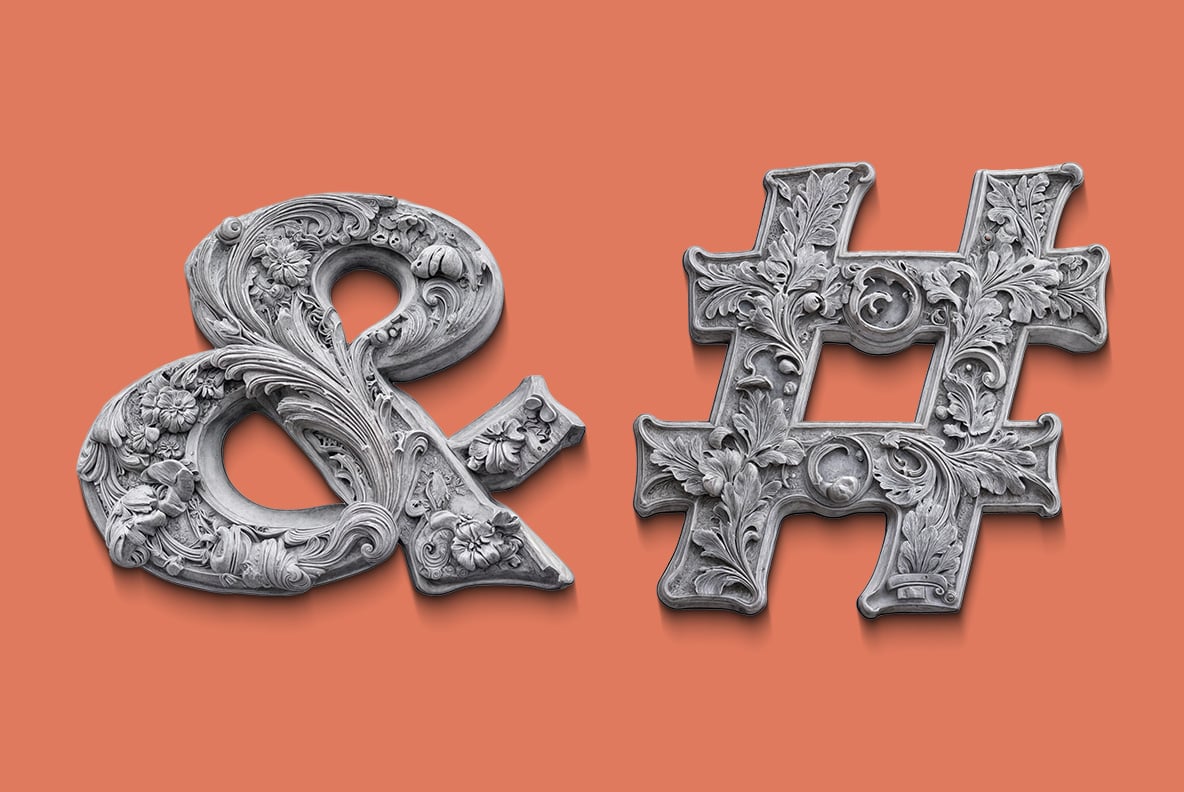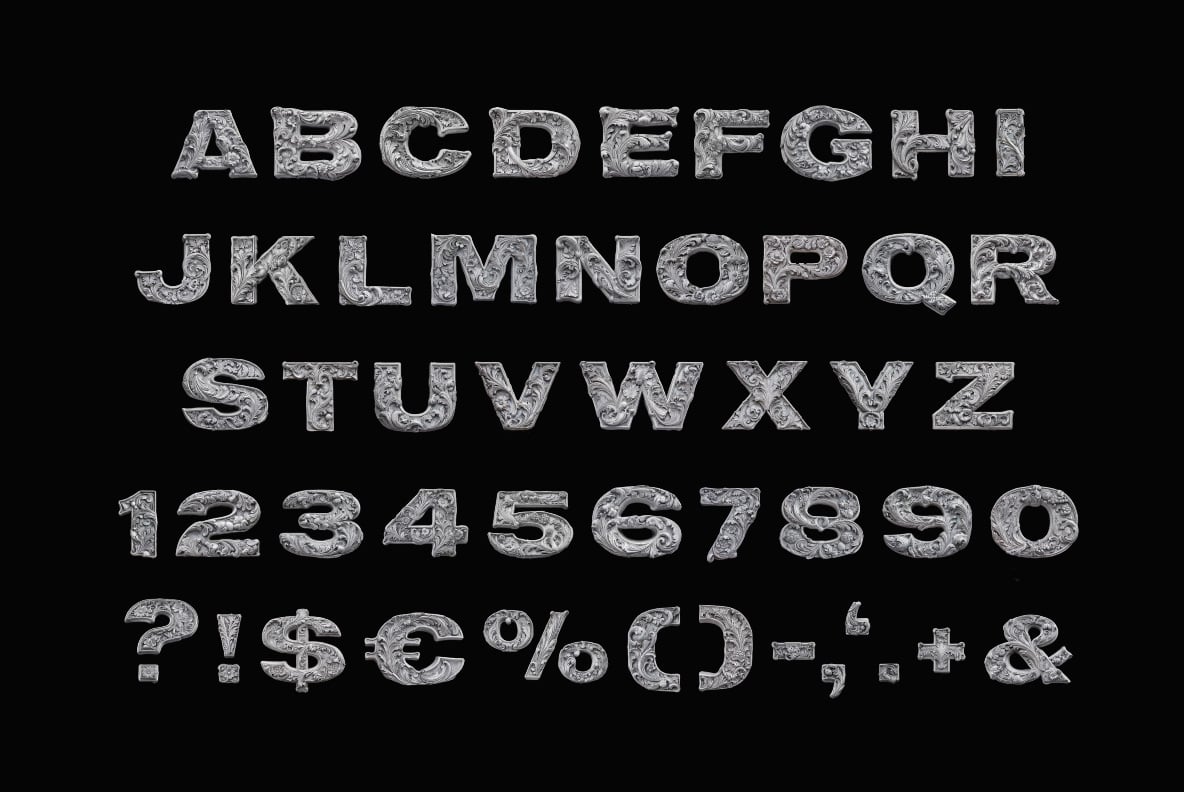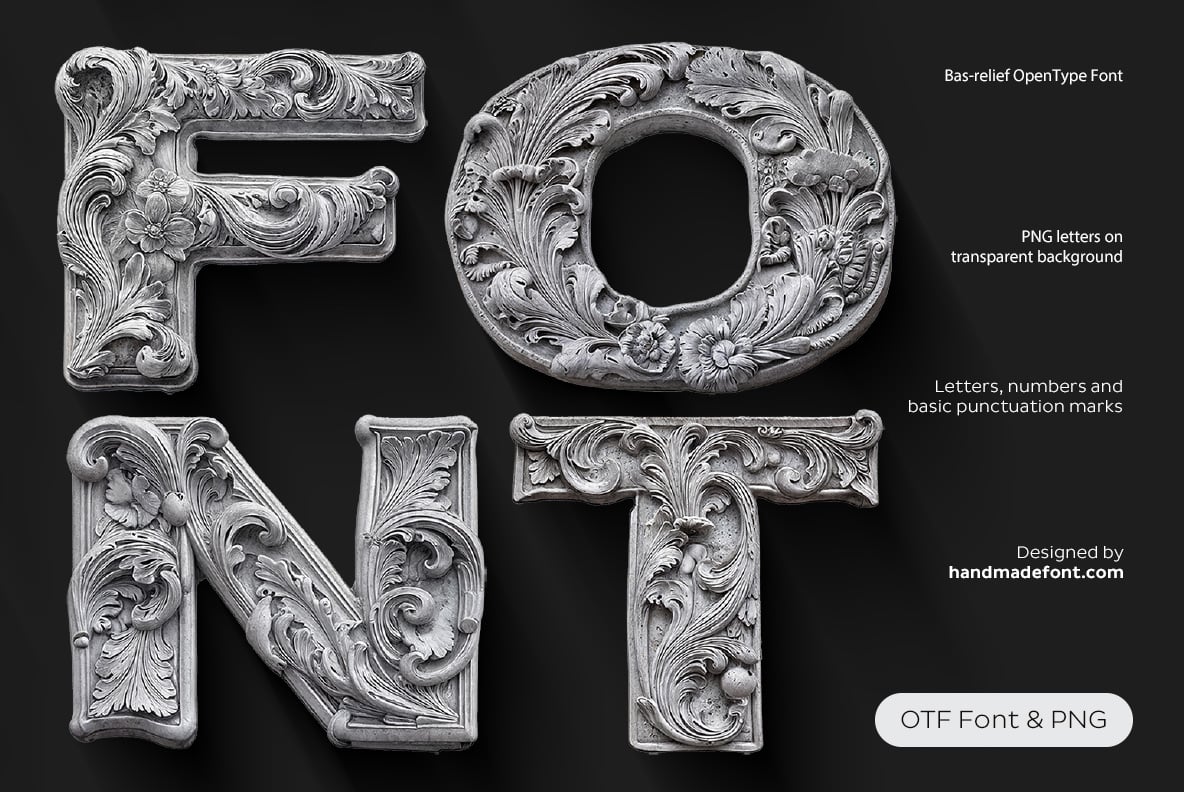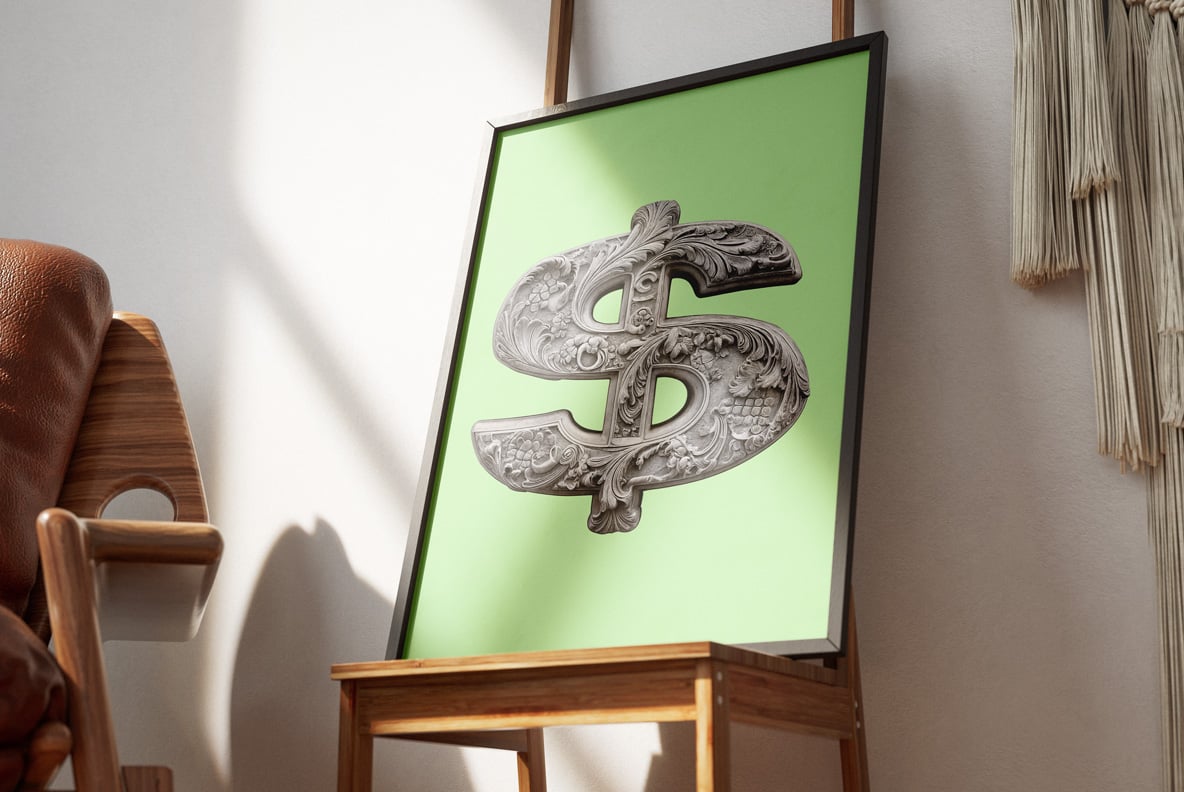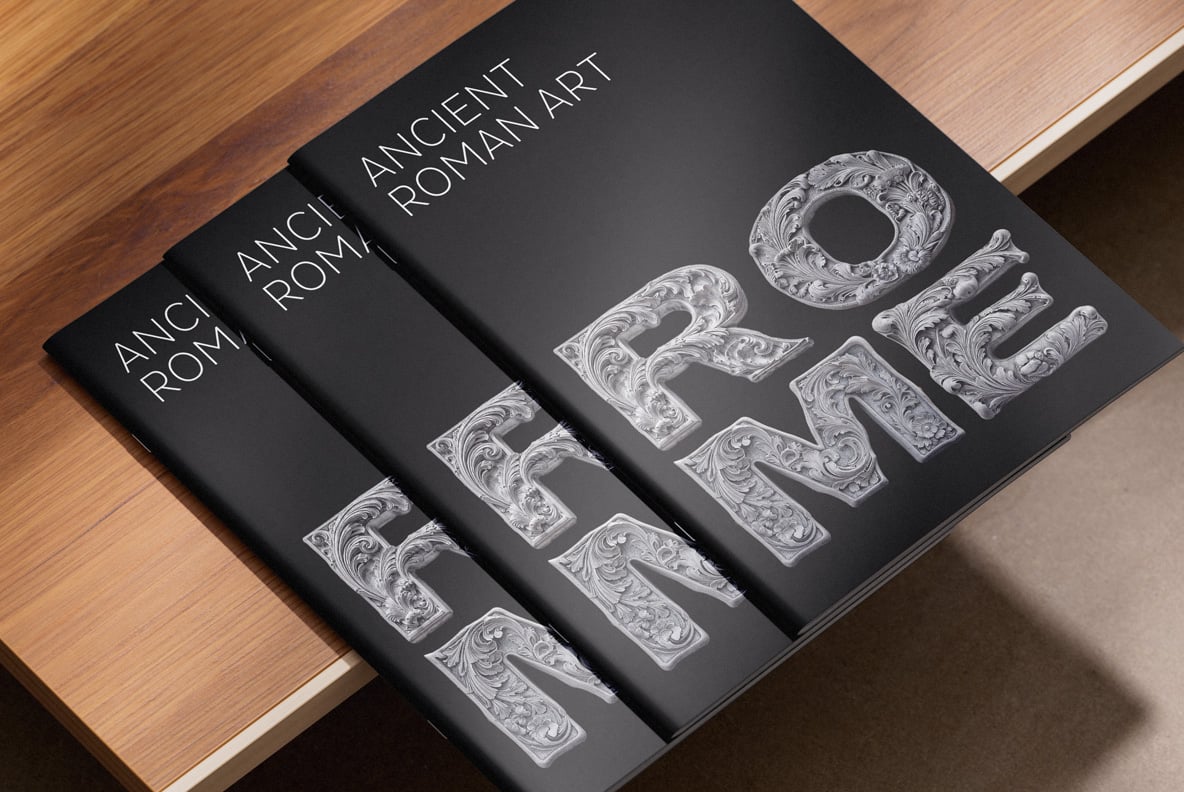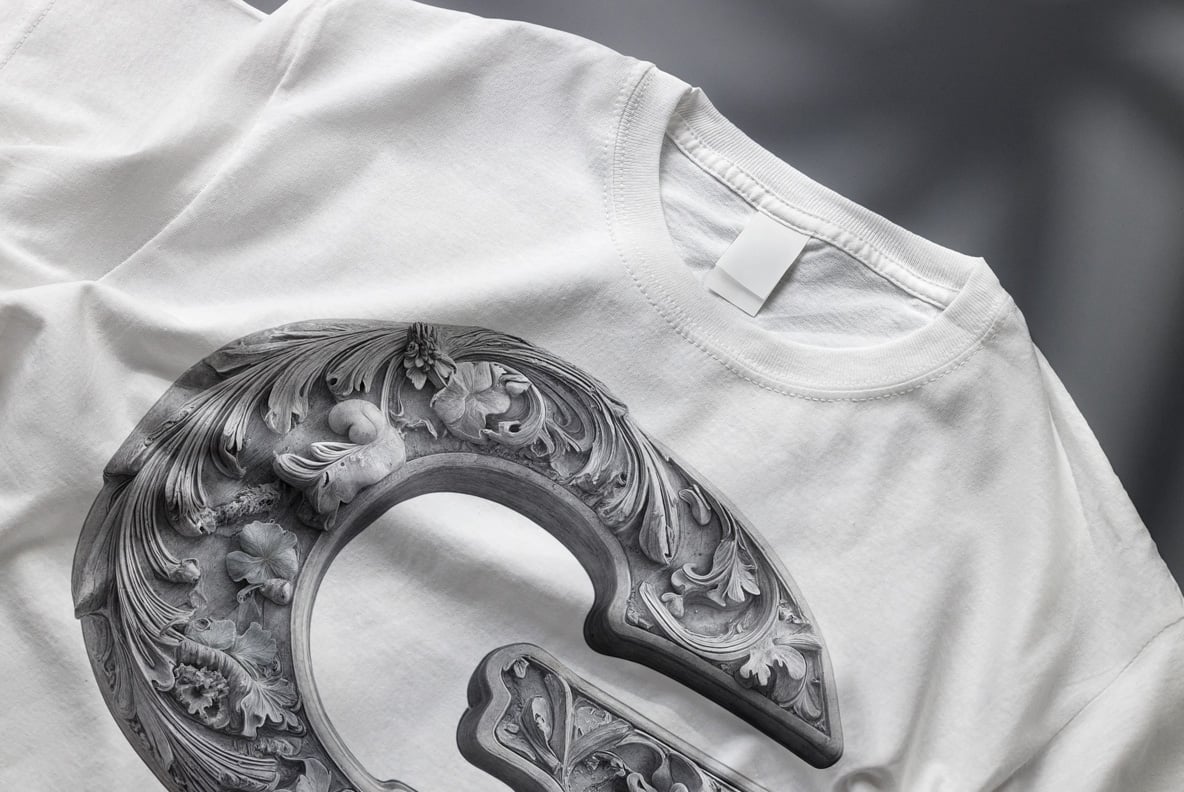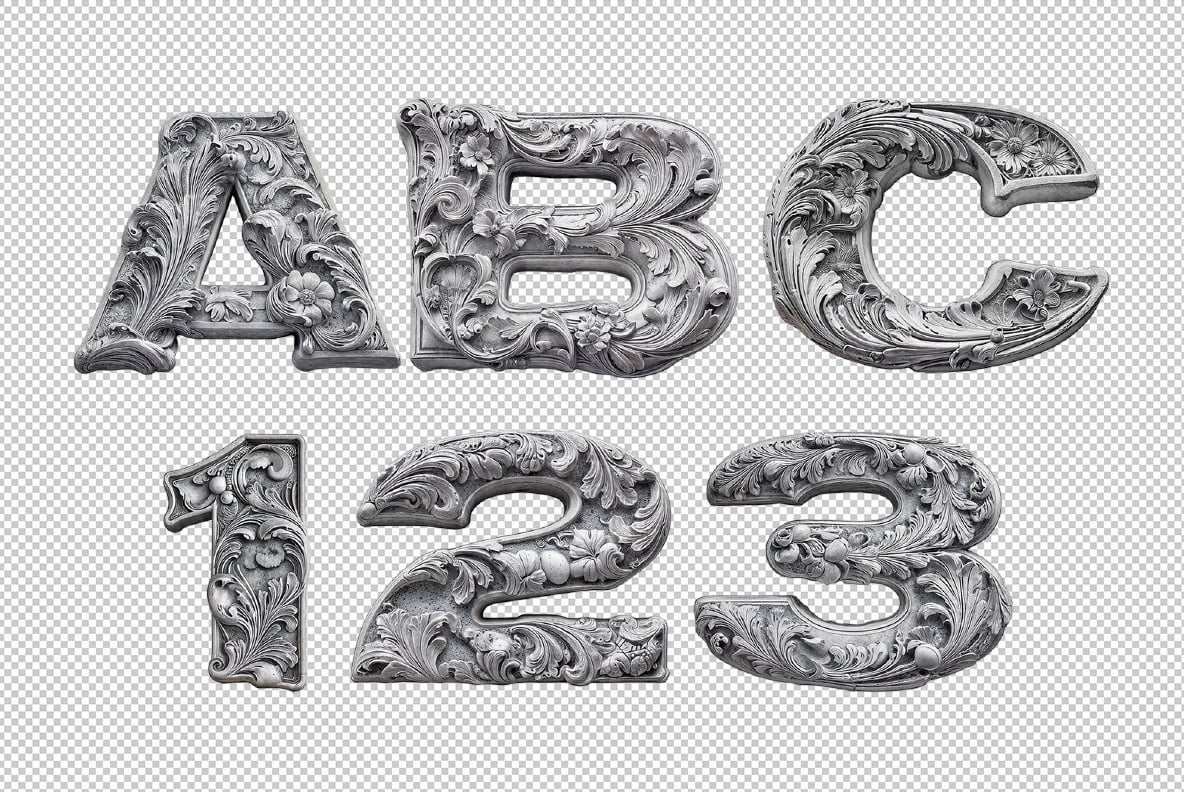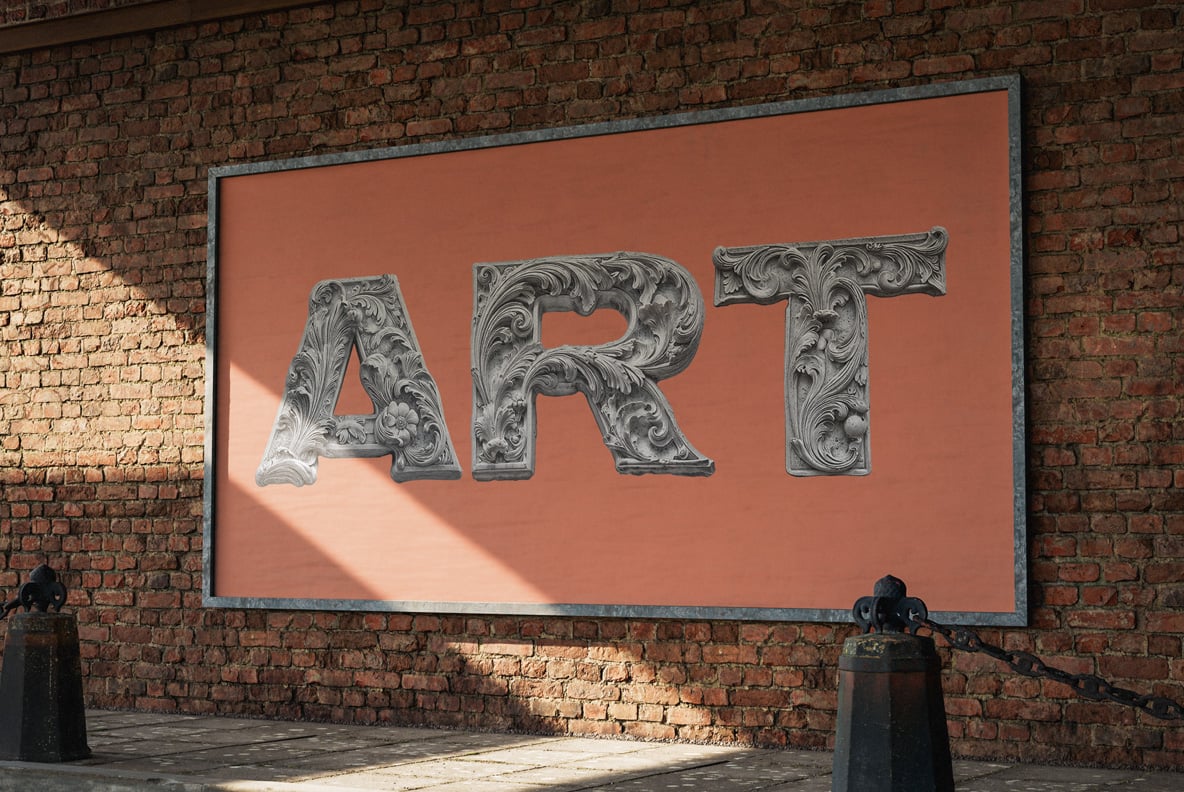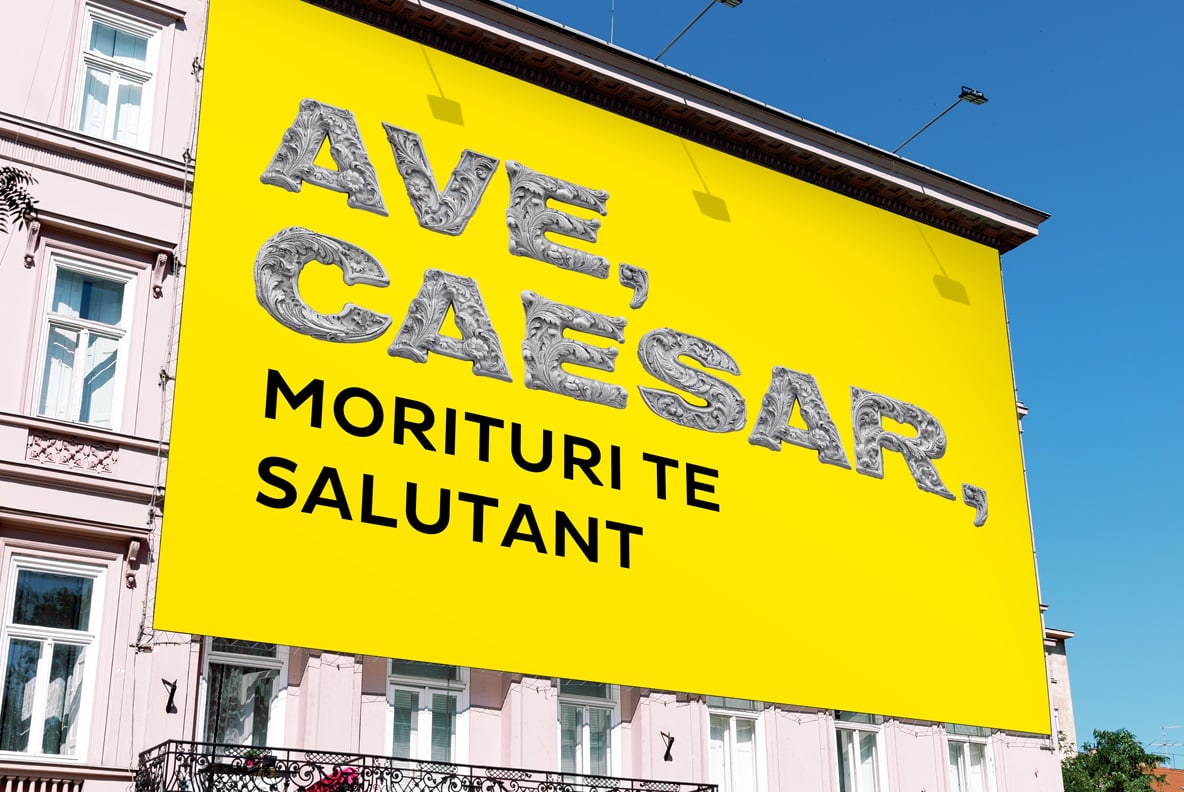
Bas-relief Font
Stone never looked so sophisticated—until it started spelling things out! The Bas-relief Font is where art meets alphabet, a sculpted symphony of ornate lettering that belongs in a museum (or at least your next masterpiece). Each letter appears meticulously carved from stone or concrete, adorned with intricate floral filigree and swirling baroque details that whisper tales of classical elegance. It’s typography with a chisel in one hand and a poetry book in the other—bold, luxurious, and unapologetically artistic. Whether you’re crafting a royal decree or just labeling your Wi-Fi, this Bas-relief-inspired font turns every word into a work of art.
A high definition OpenType Font. Contains uppercase characters, numerals and basic punctuation. (Draw height roughly 800 pixels). All letters and glyphs that comprises this font you can see on the preview.